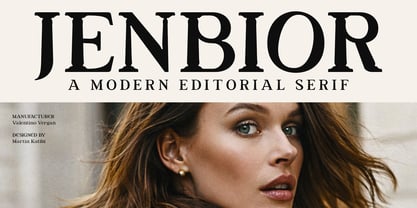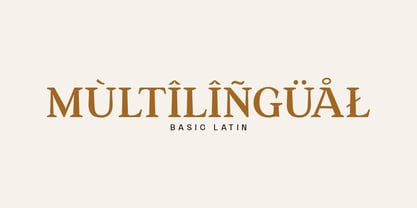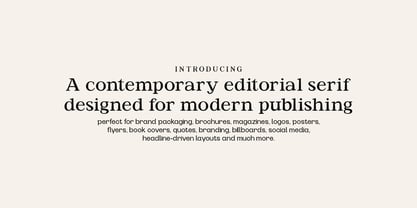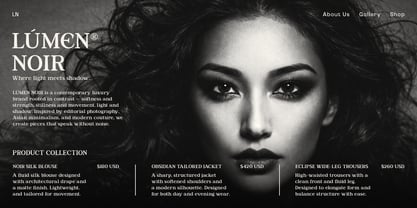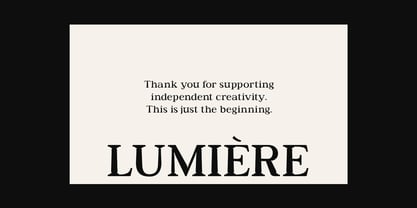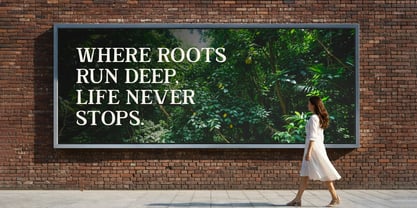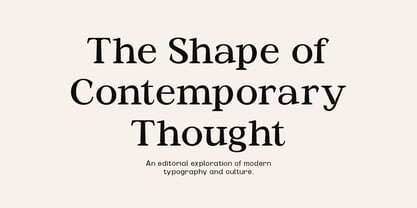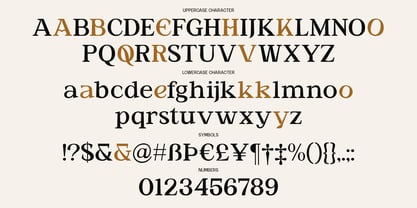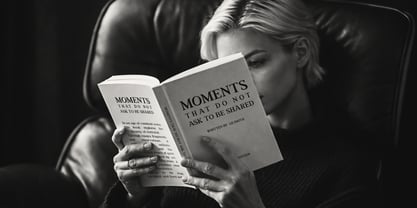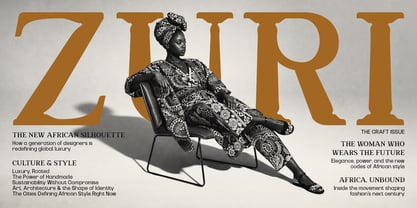
Jenbior
The Jenbior Font Family was designed by Martin Katibi and published by Valentino Vergan. Jenbior contains 1 styles. More about this family
Jenbior is a modern serif typeface inspired by editorial publishing, fashion culture, and contemporary print design. Designed for use in magazines, book covers, cultural branding, and headline-driven layouts, Jenbior blends authority with refined motion. Rooted in classical Roman proportions and reinterpreted through sculptural pillar-like stems, the typeface features expressive contrast, distinctive ink traps, and carefully shaped serifs that give it a confident yet elegant presence. Subtle organic irregularities introduce a humanist warmth, allowing the font to feel crafted rather than mechanical. Jenbior is ideal for editorial headlines, journals, posters, branding, and cultural projects where typography must communicate character, clarity, and sophistication. It performs equally well in print and digital environments, making it a versatile choice for modern designers and creative studios. Jenbior is designed for designers who want typography that feels editorial, timeless, and distinctly modern.